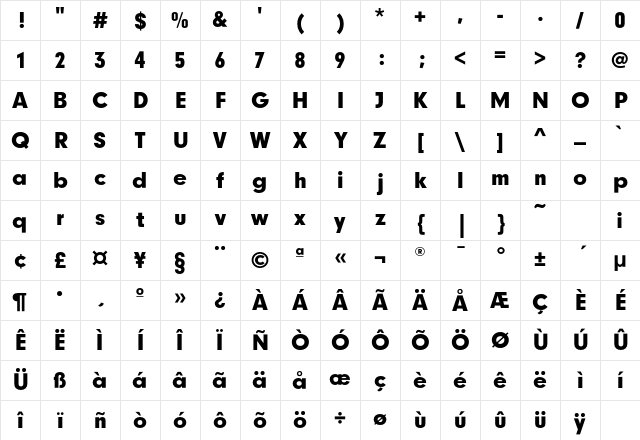
DigiGroteskNEF-Bold takes a clean, functional approach - its unadorned letterforms prioritise legibility and work reliably across screen and print environments. Its bold stroke weight gives it real presence on the page.
Font Pairing: Use DigiGroteskNEF-Bold for headlines alongside a lighter-weight sans or serif for body copy to establish clear visual hierarchy.
Pro Tip: Use DigiGroteskNEF-Bold for UI labels, navigation, and short-form body copy where clean legibility is the priority.